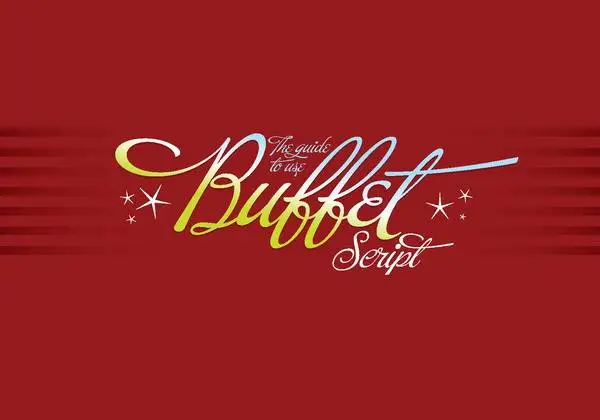
Buffet Script" is based on fantastic calligraphy by Alf Becker, arguably the greatest American sign lettering artist of all time.
The series of nameless alphabets created by Becker and published by Sign of the Times magazine in 1941 have attracted typeface digitizers for years. It's a wonder that several of these alphabets are still undigitized.